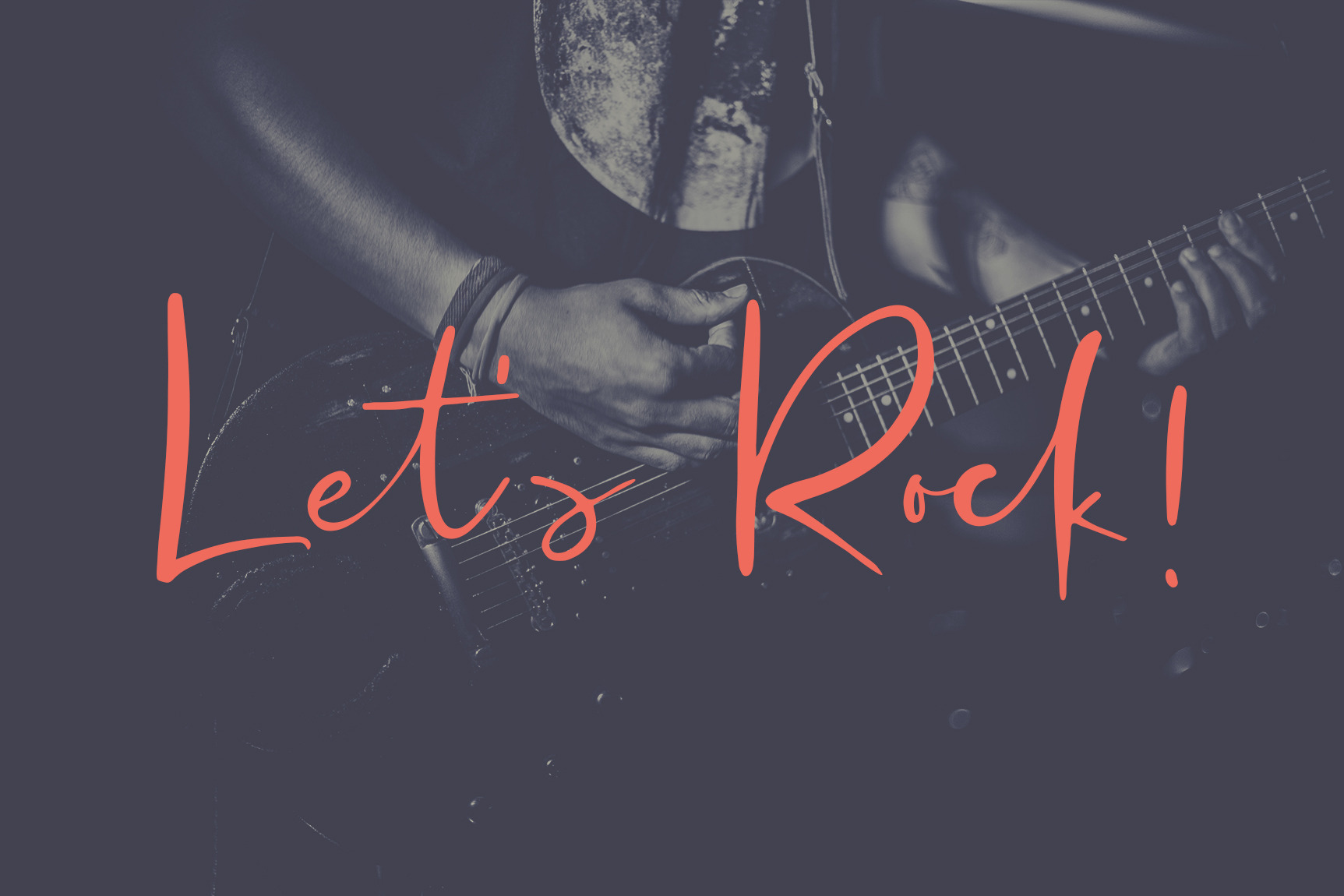
Zabrig Script Font
Zabrig is a beautiful handwritten script font that will give your designs a refined look with tons of style and simplicity. This font has a natural flow to it and works well in signature styled applications.
- A lot of ligatures for more natural looks: ab ah ak al as at att bb cc ch ck cl ct db dd ee ef el et ett ff ft gh gl gt ht ib it itt ill lk ll lt nt ob of ot ott pl rr sh sk sl ss st ub tt th ut utt tl